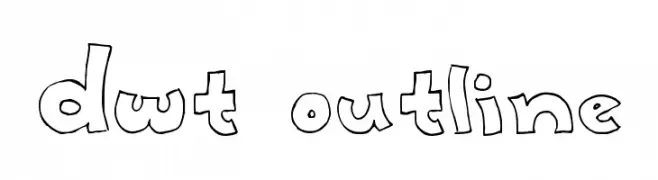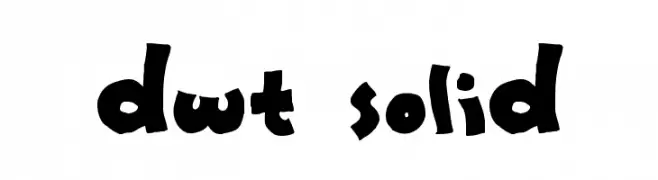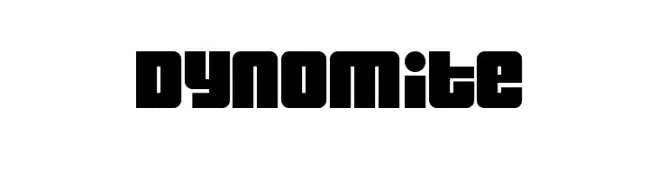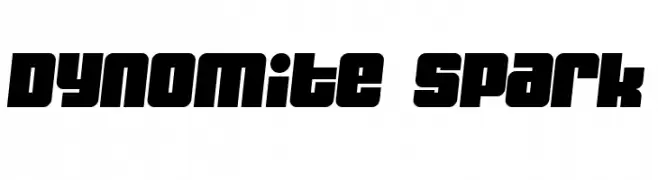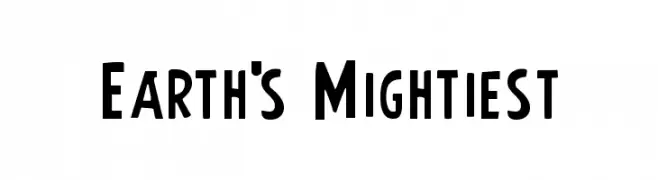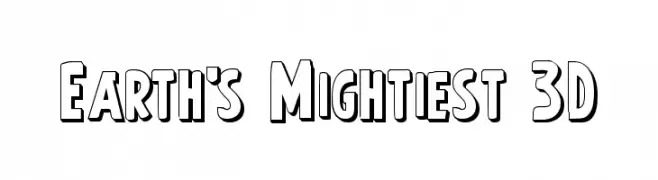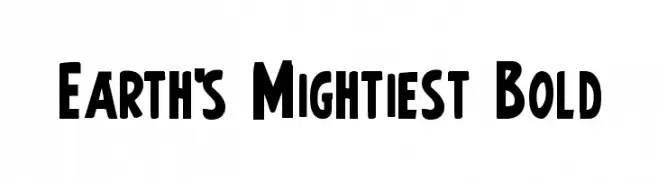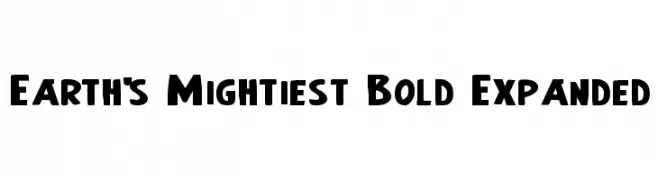
A playful, bold outline font with a whimsical, hand-drawn style.
A bold, playful font with irregular, hand-drawn letterforms.
A bold, geometric font with a strong, impactful presence.
A bold, geometric font with a retro-futuristic style and high contrast.
A bold, geometric font with a modern and dynamic style.
A bold, blocky font with thick, uniform strokes and squared edges.
A bold, modern font with a slightly condensed and decorative style.
A bold, 3D outlined font with a playful and dynamic style.
A bold, impactful font with thick lines and a strong presence, ideal for headlines.
A bold, expanded font with a modern and impactful style.